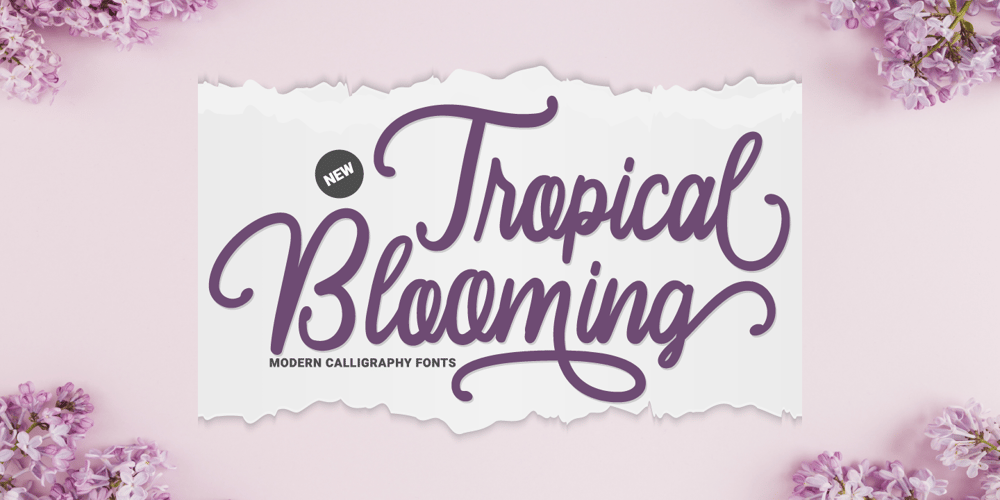
Tropical Blooming
Tropical Blooming font
Tropical Blooming Font Family was designed by Prio Nurokhim Aji and published by Prioritype. Tropical Blooming contains 1 styles and family package options. Tropical Blooming – Comes with a soft impression with a wide selection of alternative characters that make it easier for you to create design projects. Suitable for use in the design of wedding invitations, posters, quotes, crafts, merchandise, accessories, logos, social media posts, product packaging, business cards etc. See some of the previews above for reference.Features:-Uppercase-Lowercase-Numeral-Punctuation-Multilingual-PUA Encoded-Opentype FeaturesNote: Use a program that supports the Opentype features and the glyph panel is available, so you can see the various alternative characters available. Examples of programs such as Adobe Illustrator, Corel Draw or Inkscape.Thanks.